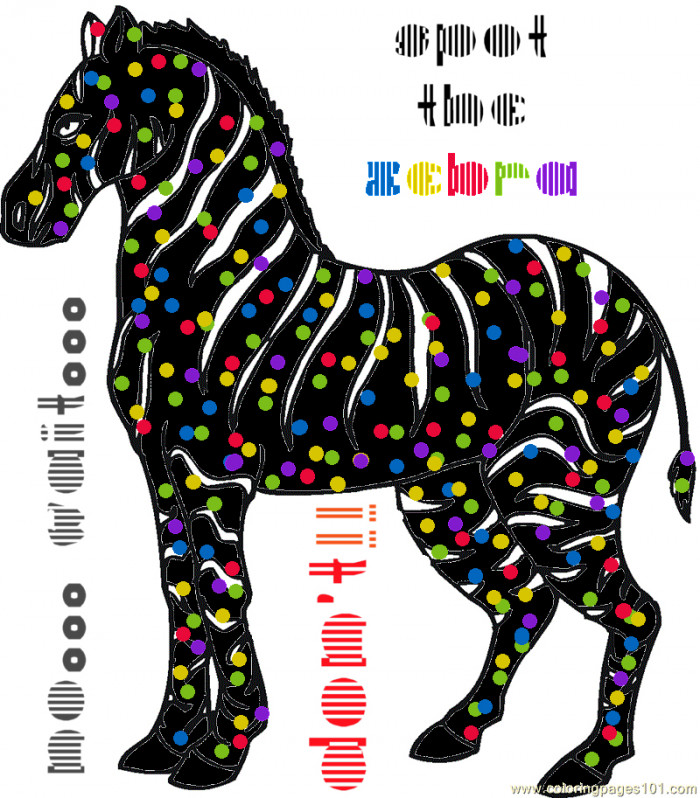
A fun variation to add to the "midi" series :)
Nice sample! Also, found it...
An easily spotted zebra :D
I really like this one. You've been working on this sort of design for a while and I like this one the best! I especially like that the lower case is fun and interesting also along with the upper case and yet they are distinctly different.
@ jonrgrover: thank you. At uni I loved screen printing, the more op-art, sequencing and fine variations the better ;)
Is the title for your font deriven from the Dutch word:  " 's middags " ?
@ Sed: yes :) It started with midi-trente because one day I finished sketching  the first glyph band at half past mid-day ;) all its clones have the word for mid-day. I love being in the Netherlands specially {I am Sterdam} and occasionally go meet my many friends there